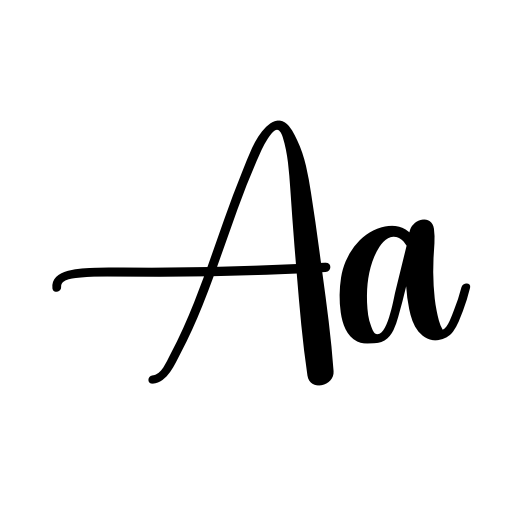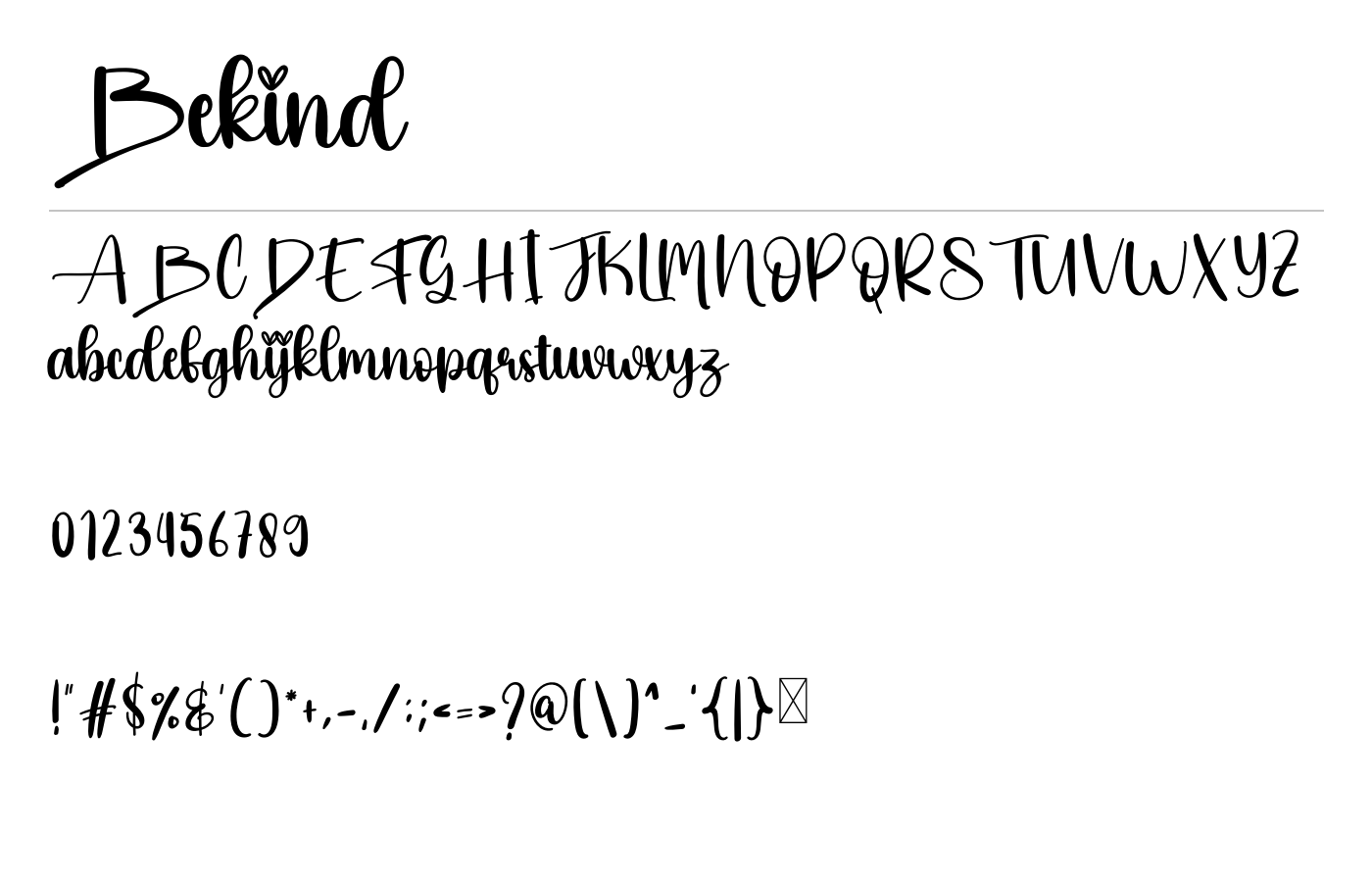
Bekind is a charming handwritten script font with playful, modern letterforms and a warm, friendly feel. Its smooth, flowing strokes and unique flourishes, like the heart-shaped dot on the "i," make it perfect for casual branding, invitations, or social media graphics where a personal, approachable touch is desired. This font works well for creative projects seeking a lively yet elegant handwritten style.
Bekind Font
About Bekind Font